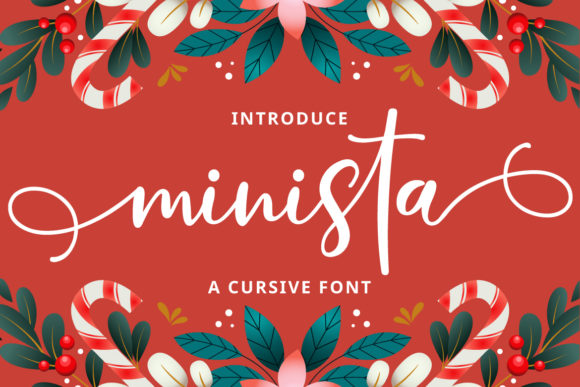
Behold Minista Font – An Enchanting Handwritten Creation That Will Elevate Your Designs!
In the realm of typography, Minista Font shines like a radiant star, captivating hearts with its delicate, elegant, and flowing style. Crafted with utmost care by Fallengraphic, this script font is a true masterpiece, designed to add a touch of magic to your creative endeavors.
Immerse yourself in the beauty of Minista's well-balanced characters, each meticulously crafted to harmonize seamlessly with your vision. Its graceful strokes and alluring curves dance across the page, evoking a sense of sophistication and timeless elegance.
Unleash your creativity and witness how Minista Font brings life to your designs. Whether you're crafting logos, branding materials, invitations, or social media posts, this font will elevate your work to new heights. Its versatility knows no bounds, adapting effortlessly to a myriad of design aesthetics, from classic and timeless to modern and edgy.
With Minista Font, the possibilities are endless. Let your imagination soar as you explore the endless creative avenues that this font opens up. Dive into the world of personalized stationery, create captivating quotes and graphics, or design breathtaking wedding invitations that will leave a lasting impression.
Don't miss the chance to experience the magic of Minista Font. Embark on a creative journey like no other, where your designs come alive with elegance and sophistication.